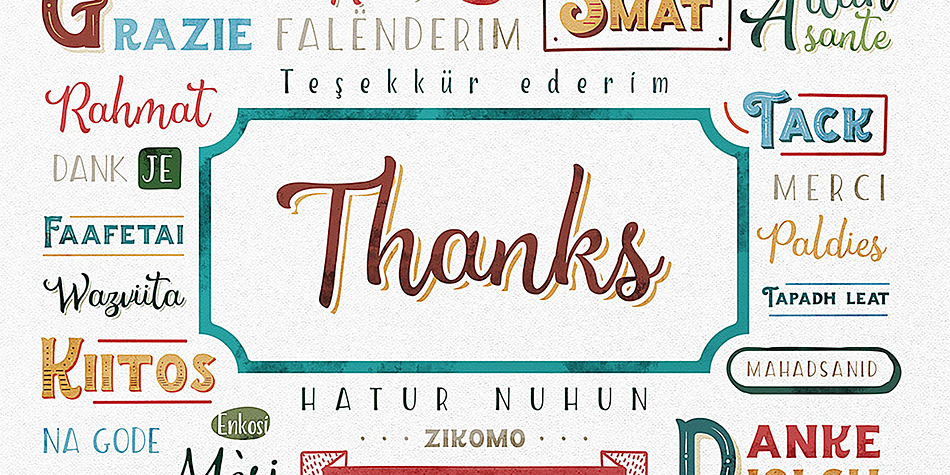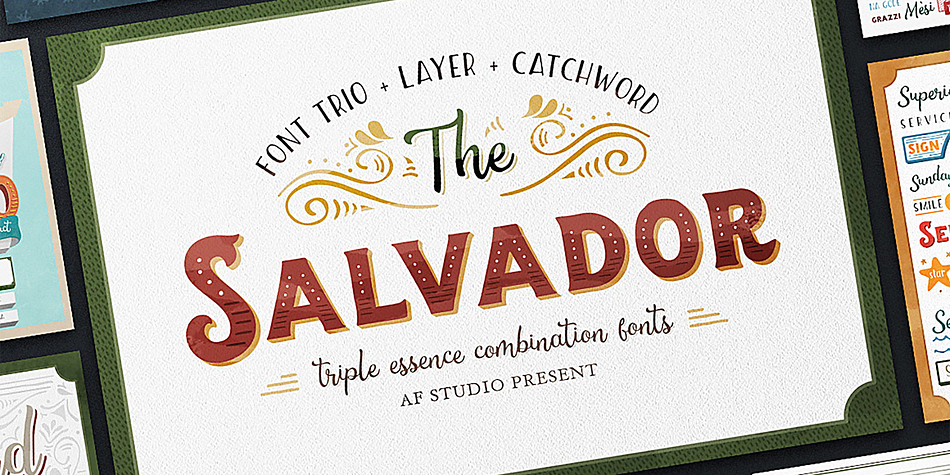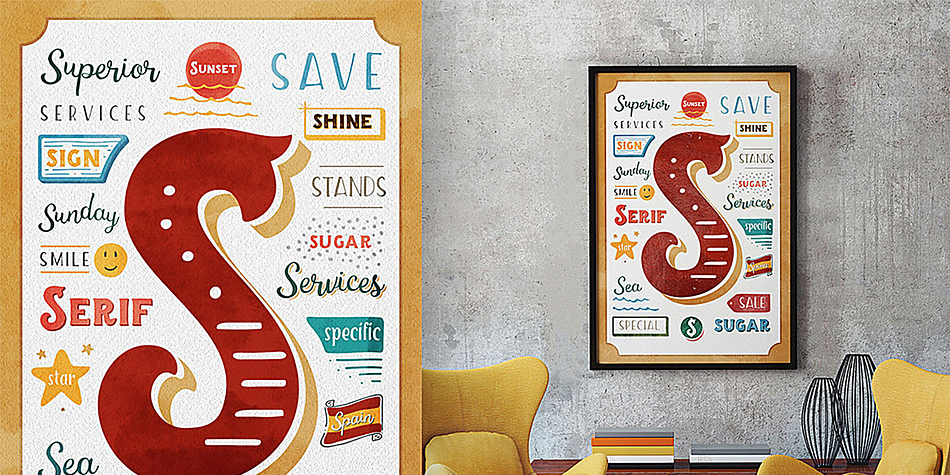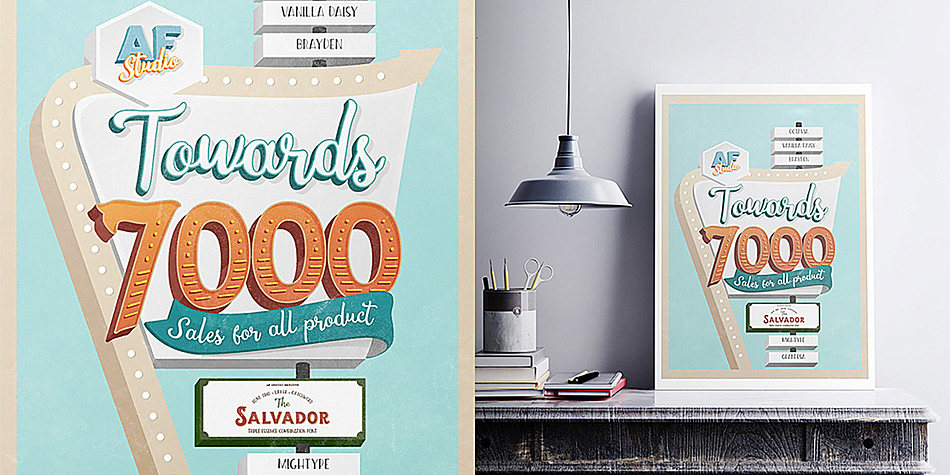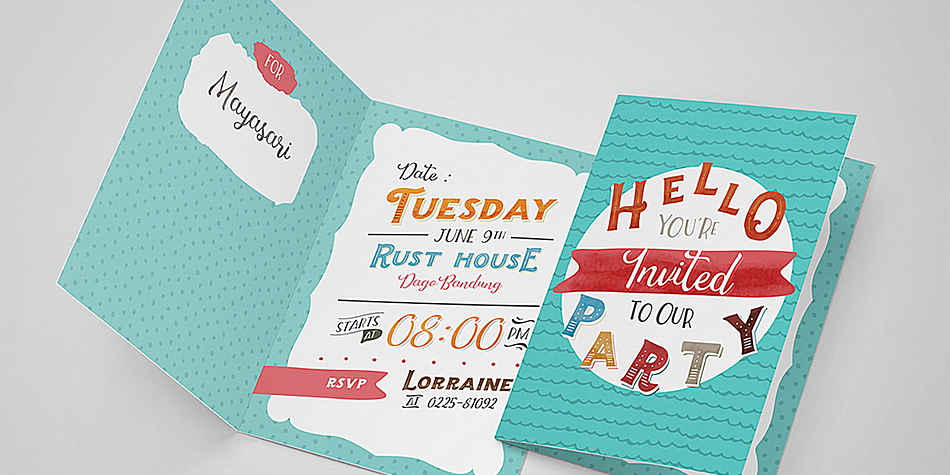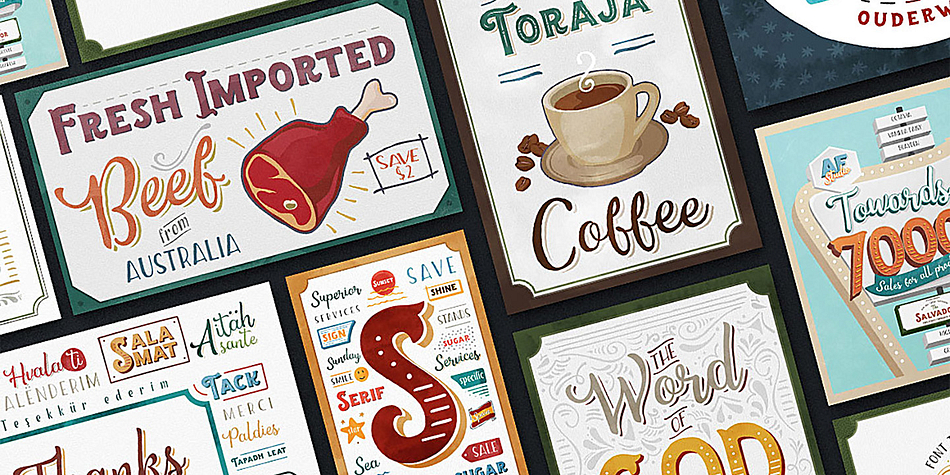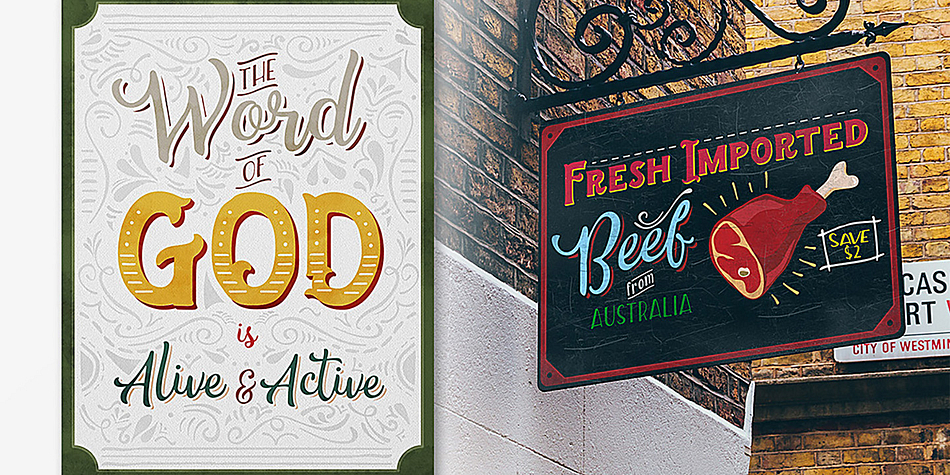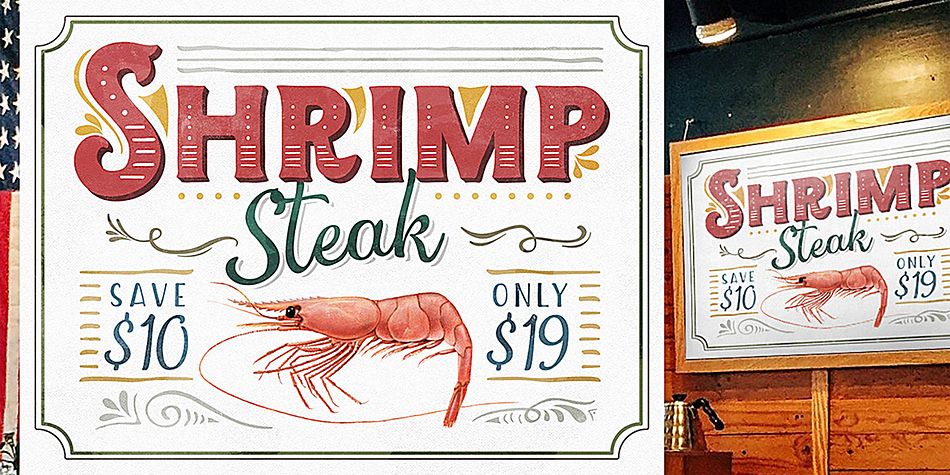
The Salvador
The Salvador is a multiple classification font family. This typeface has seven styles and was published by AF Studio.
THE SALVADOR - Triple Essence Combination Fonts
The Salvador is trio combinations of fonts. inspired from the Lettering Artist who made the unique combination handlettering type style and perfect color choosen.
The Salvador Serif comes with 4 layers : Base, Shadow, and Inline or Dotted Inline. Inline and Dotted Inline are similar style, just choose one which is the best for you.
The Salvador Script also comes with layer : Base and Shadow. for making the style more life.
Excess use for layered fonts is that, you can choose different color on every layer of the fonts without needing add some type effects.